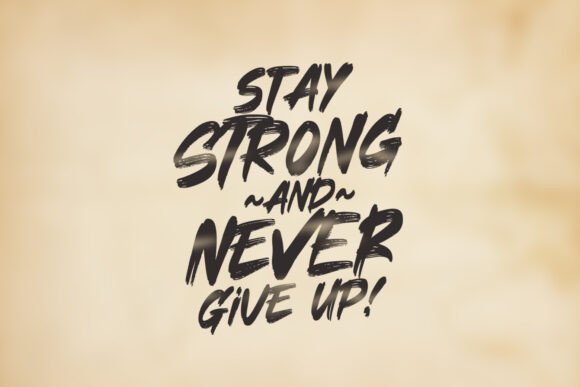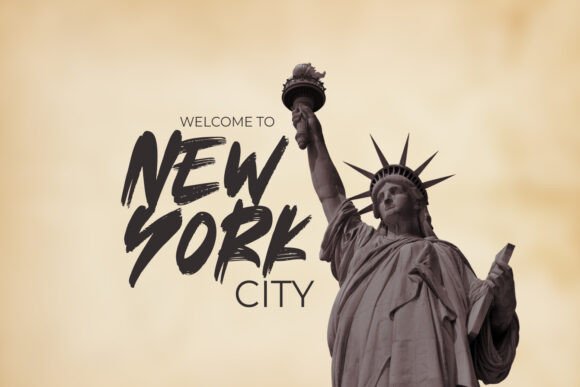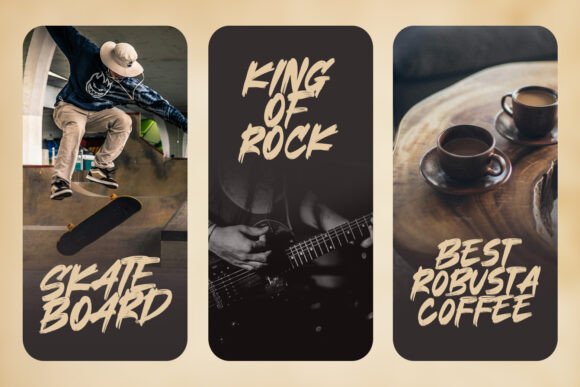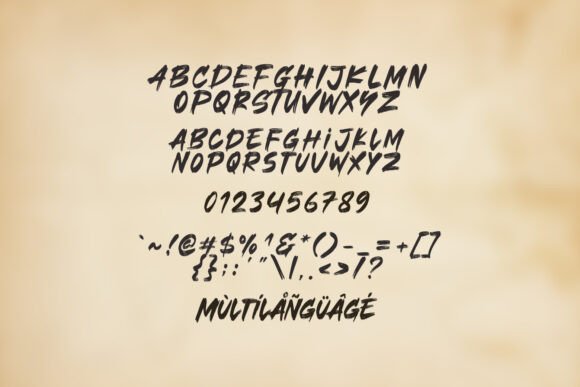
Introducing Crashbow Font: The Ultimate Modern Brush Font for Creative Designs
Are you a designer or crafter looking for a unique and quirky font to elevate your creative projects? Look no further than Crashbow Font! This modern brush font is perfect for creating stunning posters, logos, magazines, book covers, banners, and so much more. With its distinctive and eye-catching style, Crashbow Font is sure to make your designs stand out from the crowd.
What is Crashbow Font?
Crashbow Font is a modern brush font that boasts a fresh and playful aesthetic. Its unique brush strokes and quirky feel make it an ideal choice for designers and crafters who want to add a personal touch to their work. Whether you’re creating a bold poster, a stylish logo, or a captivating book cover, Crashbow Font is the perfect choice.
Key Features of Crashbow Font
- Modern Brush Style: Crashbow Font features a modern brush style that gives it a fresh and playful look.
- Quirky and Eye-Catching: The font’s quirky feel and distinctive brush strokes make it perfect for creating eye-catching designs.
- Highly Versatile: Crashbow Font can be used for a wide range of projects, including posters, logos, magazines, book covers, banners, and more.
- Easily Customizable: The font is easy to customize, allowing you to adjust it to fit your specific design needs.
Crashbow Font is incredibly versatile and can be used for a wide range of projects. Here are some ideas to get you started:
- Posters: Create stunning posters for events, promotions, or advertising campaigns.
- Logos: Design unique and memorable logos for businesses, brands, or products.
- Magazines: Use Crashbow Font to create eye-catching headlines and titles for your magazine or publication.
- Book Covers: Add a touch of personality to your book covers with Crashbow Font.
- Banners: Create attention-grabbing banners for websites, social media, or advertising campaigns.
Why Choose Crashbow Font?
So why choose Crashbow Font for your design projects? Here are just a few reasons:
- Unique and Quirky: Crashbow Font offers a unique and quirky style that will set your designs apart from the crowd.
- Easily Customizable: The font is easy to customize, allowing you to adjust it to fit your specific design needs.
- High-Quality: Crashbow Font is a high-quality font that is designed to produce stunning results.
- Perfect for Designers and Crafters: The font is perfect for designers and crafters who want to add a personal touch to their work.
Tips for Using Crashbow Font
Here are some tips for using Crashbow Font in your design projects:
- Experiment with Different Sizes: Try out different font sizes to see how Crashbow Font looks in various contexts.
- Play with Color: Experiment with different colors to find the perfect match for your design.
- Combine with Other Fonts: Try pairing Crashbow Font with other fonts to create a unique and interesting look.
- Use for Headlines and Titles: Use Crashbow Font for headlines and titles to add a touch of personality to your designs.